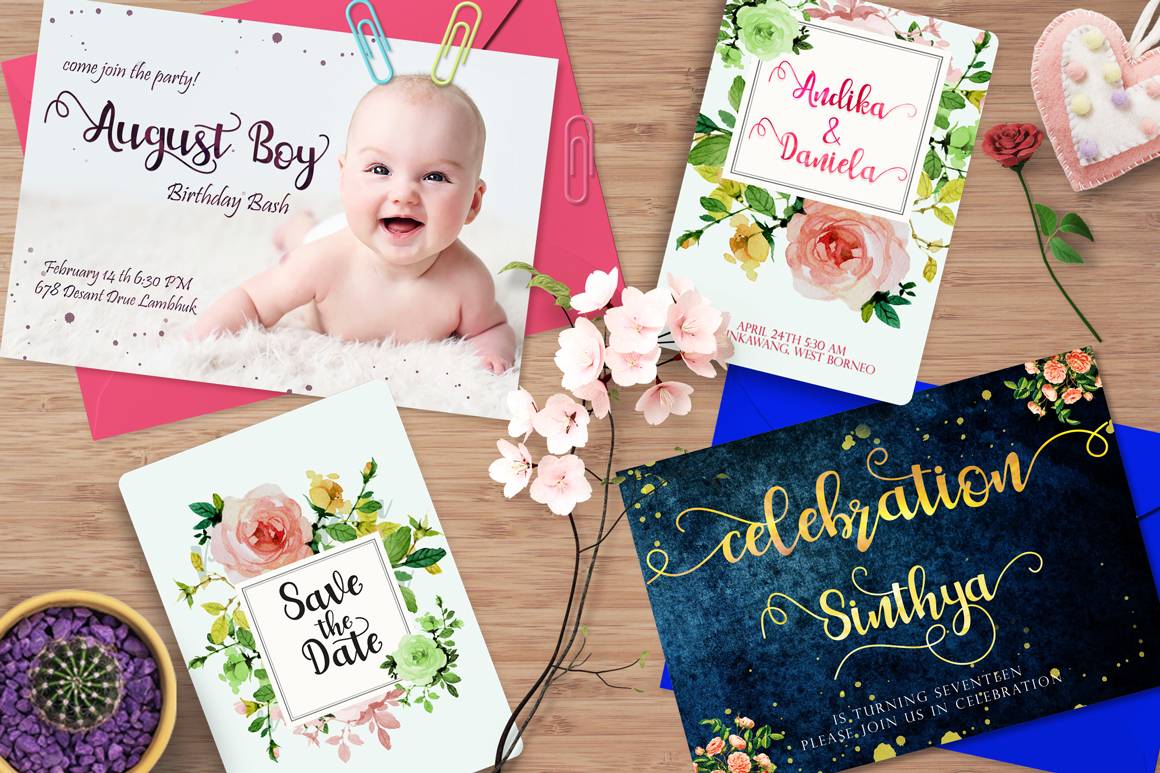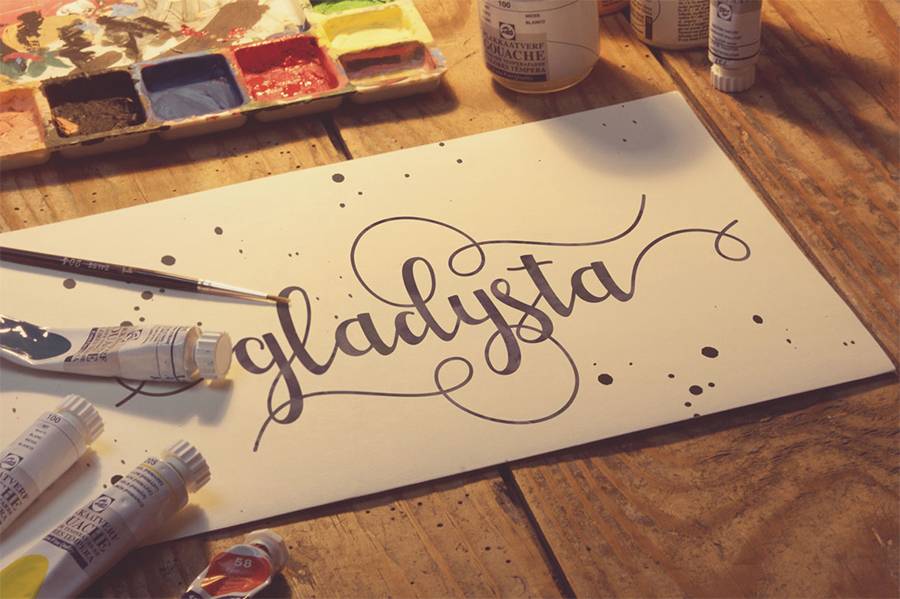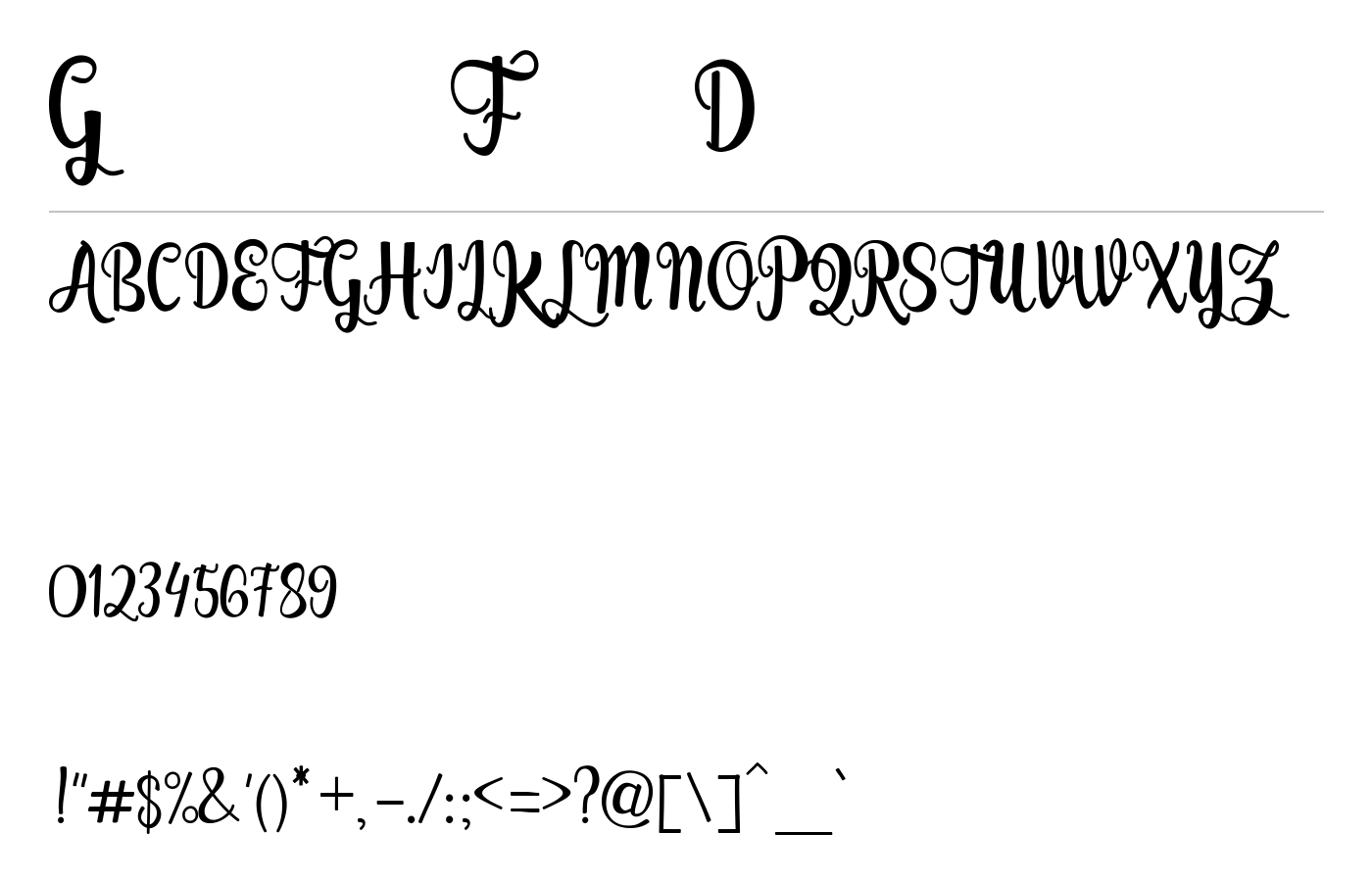
Gladysta Script is a playful and elegant script font featuring bold, decorative uppercase letters with lively swirls and a slightly condensed structure. Its smooth, flowing strokes and unique character shapes bring a charming, vintage-inspired personality that suits logos, invitations, and stylish branding. This font works best in display sizes where its artistic details can shine, adding a creative, whimsical touch to design projects.
Gladysta Script
About Gladysta Script
| Font family | Gladysta Script |
| Designer | vanroem |